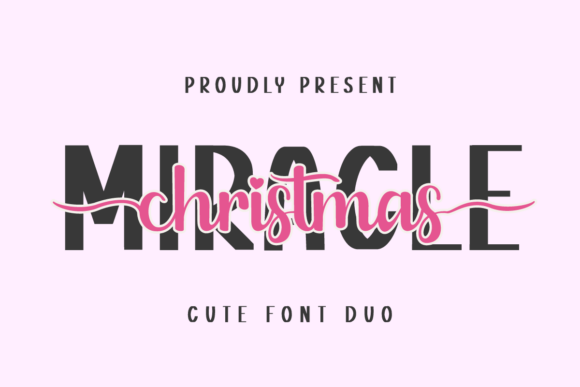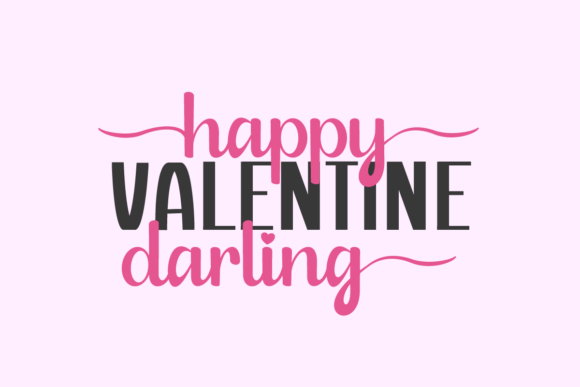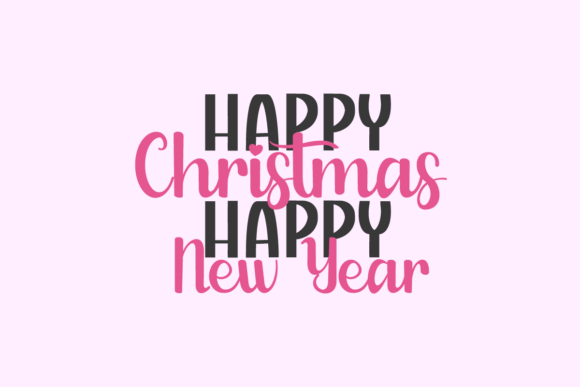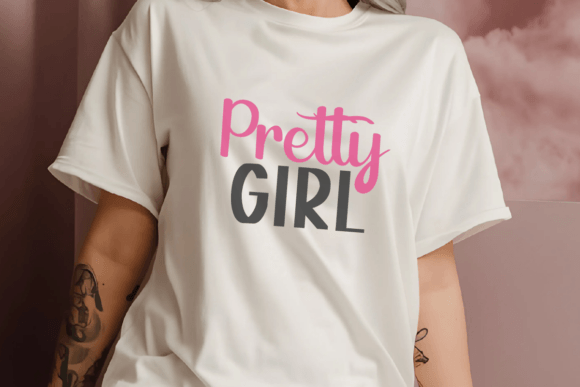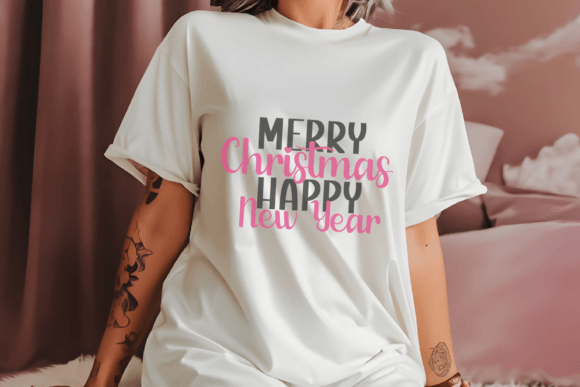
Miracle Christmas Duo Font
Miracle Christmas is a duo font combination of beautiful handwritten and playful sans serif. This is very beautiful, charming, fancy, and cool. the perfect font for christmas, christmas t-shirts, christmas gifts, christmas greeting cards, christmas necklaces, christmas wall art, christmas quotes, and christmas crafts. fonts suitable for mugs, calendars, planners, book covers, stickers, Cricut, silhouettes, key chains, baby clothes, hoodies, printing, posters, tumblers, decals, etc. This font is also perfect for Etsy branding and marketing needs.